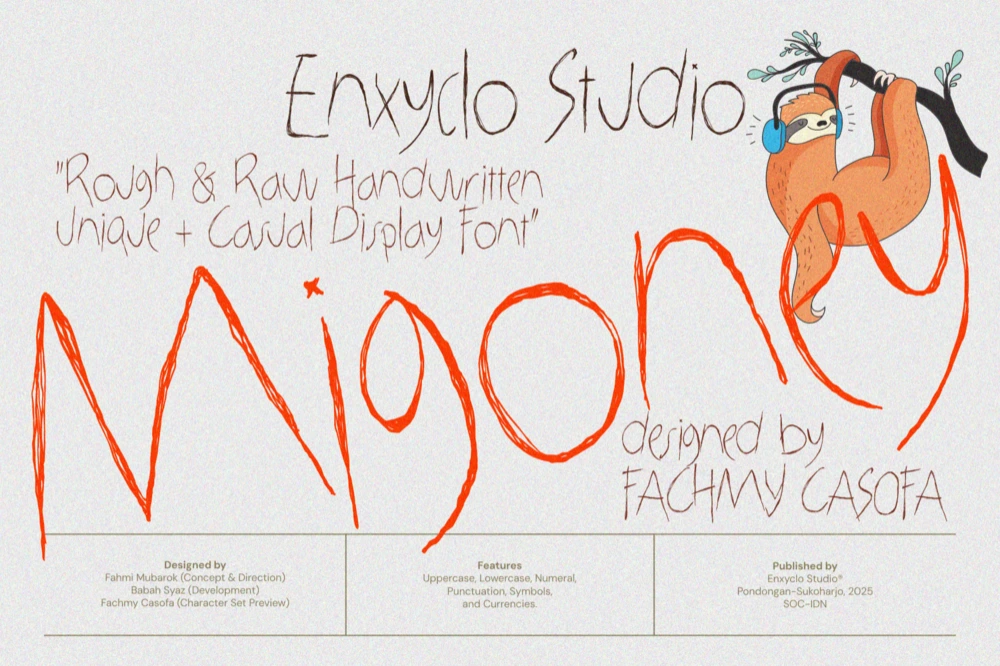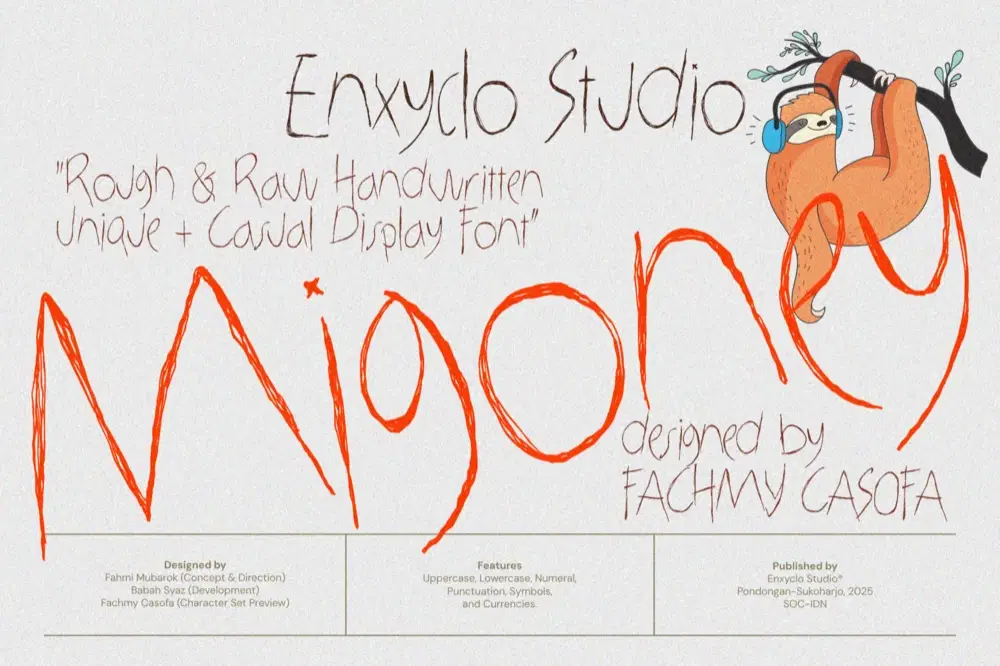
MIGONEY is a raw, rough, and handwritten font that blends natural imperfection with timeless classic charm. Crafted with an organic pen-and-paper feel, MIGONEY delivers an authentic aesthetic look that feels casual, expressive, and intentionally imperfect—perfect for designers who want their work to feel real, bold, and full of character.
Its uneven strokes and handcrafted texture make MIGONEY stand out in modern branding, editorial layouts, creative agency visuals, and impactful posters or headlines. Whether you're building a unique identity or adding an artistic edge to your designs, MIGONEY brings a raw, genuine personality that can’t be replicated.
FEATURE
Uppercase letters
Lowercase letters
Punctuation marks
Symbol set
Currency symbols
PERFECT FOR
Branding and identity design
Creative agency projects
Posters and bold headlines
Handcrafted product packaging
Casual and aesthetic social media graphics
Artistic merch and apparel
Classic yet modern editorial layouts
Organic, natural-themed projects
Unique logo designs